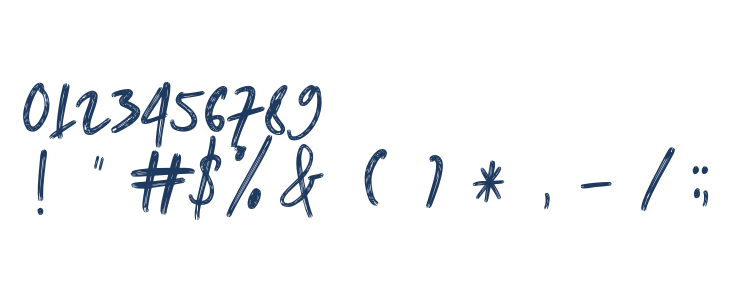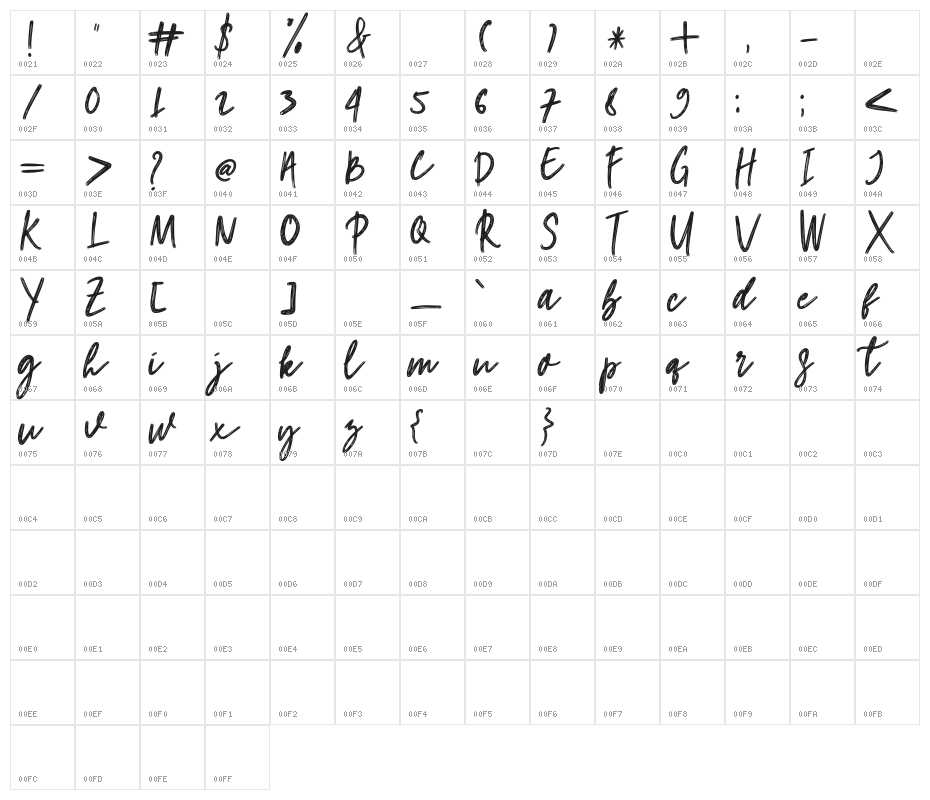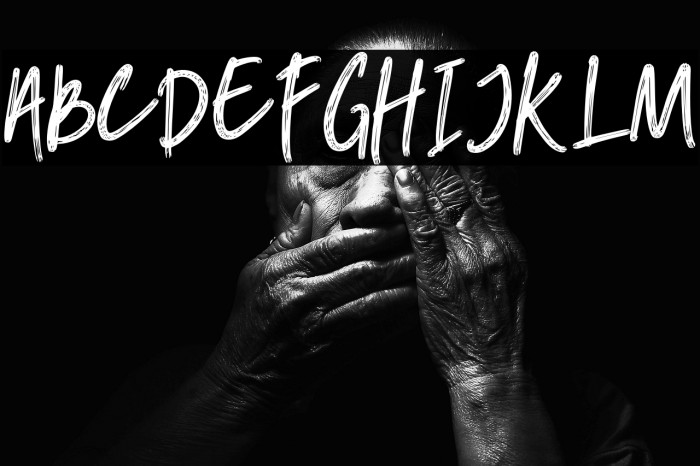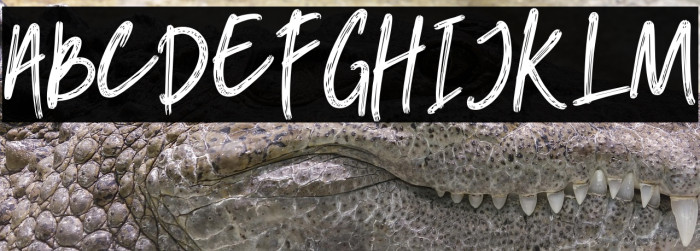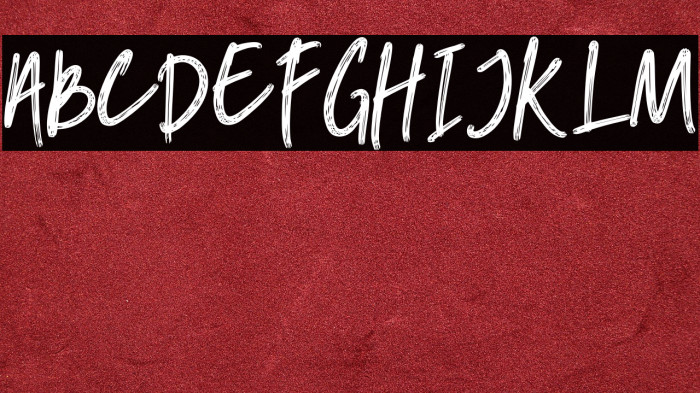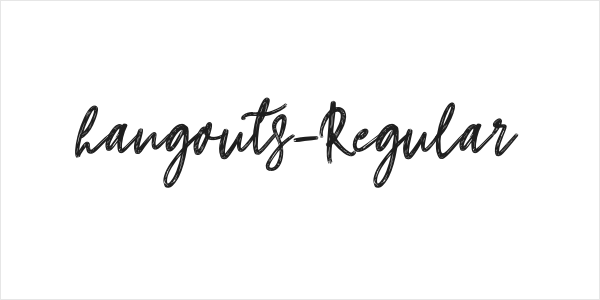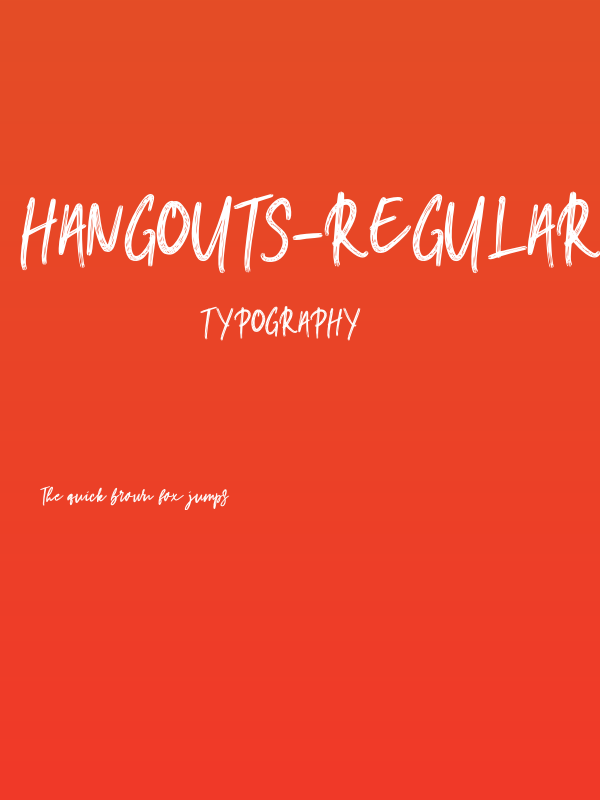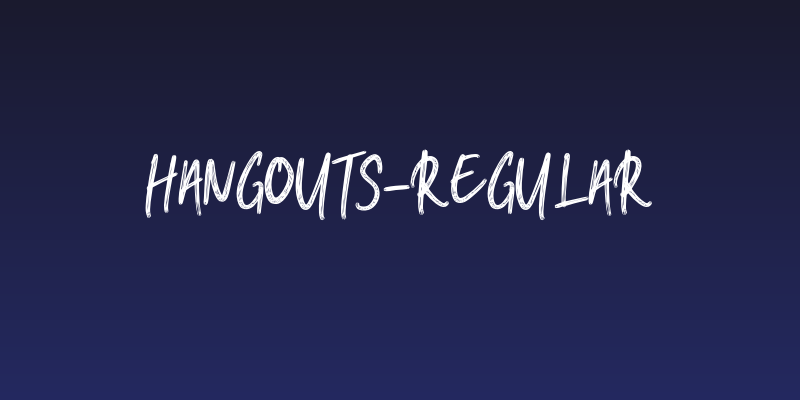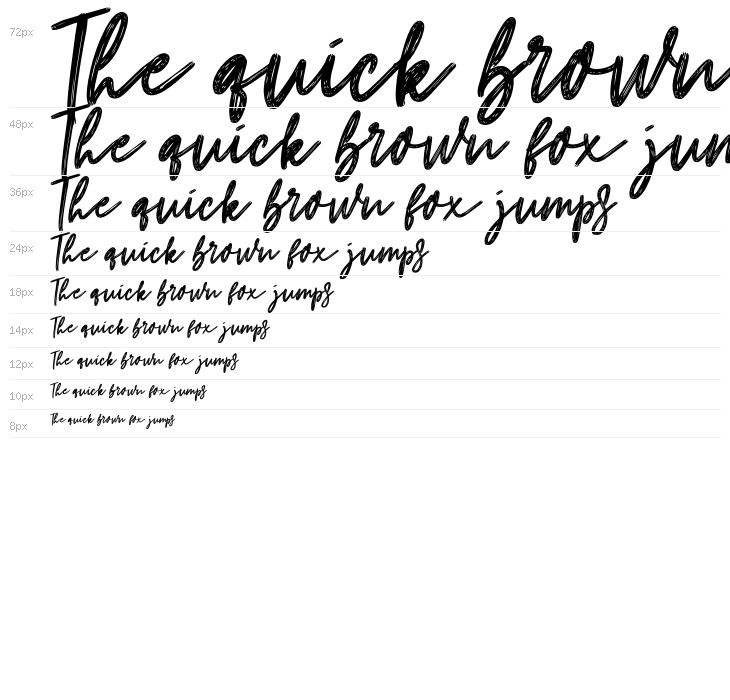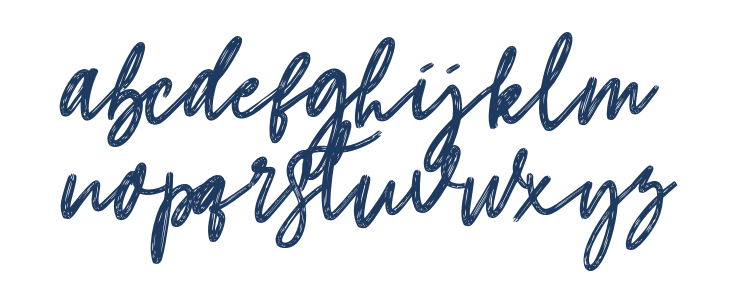
hangouts-Regular Font
hangouts-Regular Description
This font features a dynamic and energetic handwritten style, characterized by its bold, brush-like strokes that convey a sense of spontaneity and creativity. The uppercase and lowercase letters maintain a consistent flow, with slightly irregular shapes that add to its casual and informal appearance. The numerals and special characters are crafted with the same lively energy, making them stand out in any design. The overall look is playful yet sophisticated, suitable for projects that require a personal touch.
| Overall Style | Casual, Artistic |
| Proposed Projects | Ideal for greeting cards, invitations, posters, and branding that seeks a personal, artistic touch. |